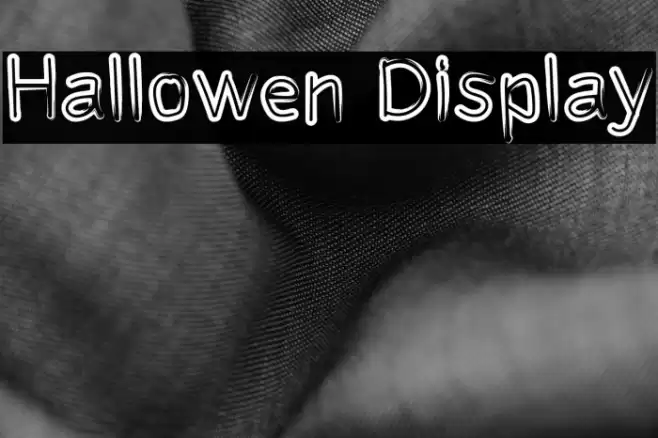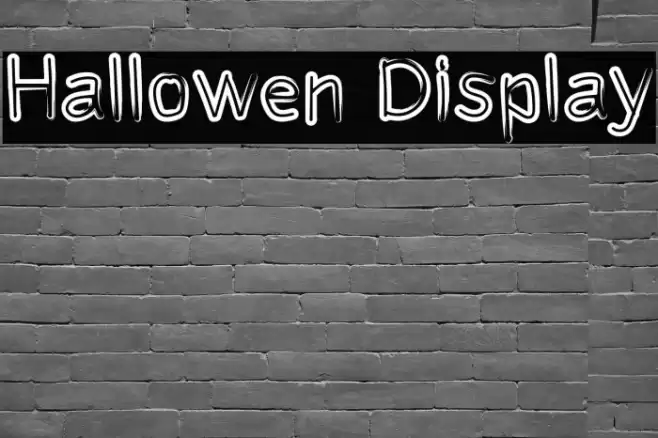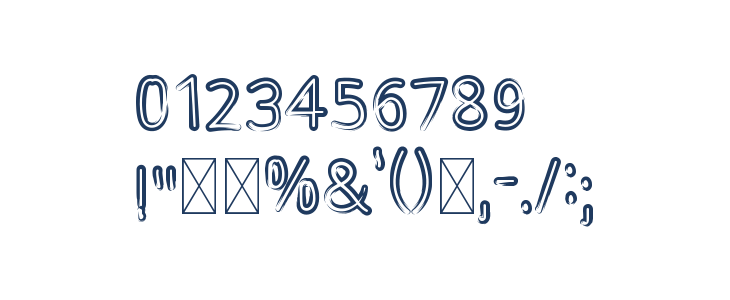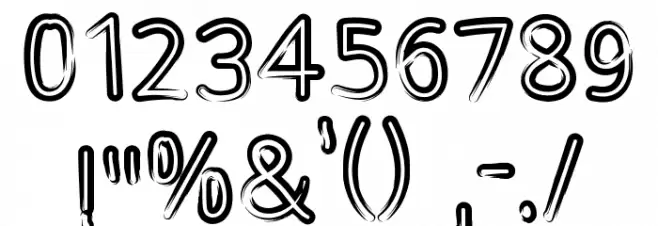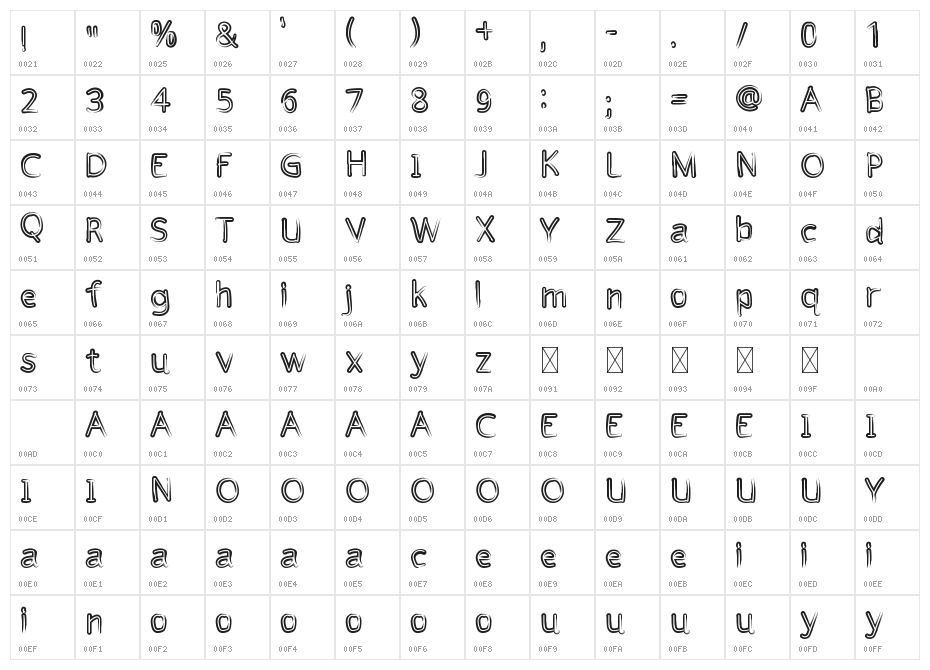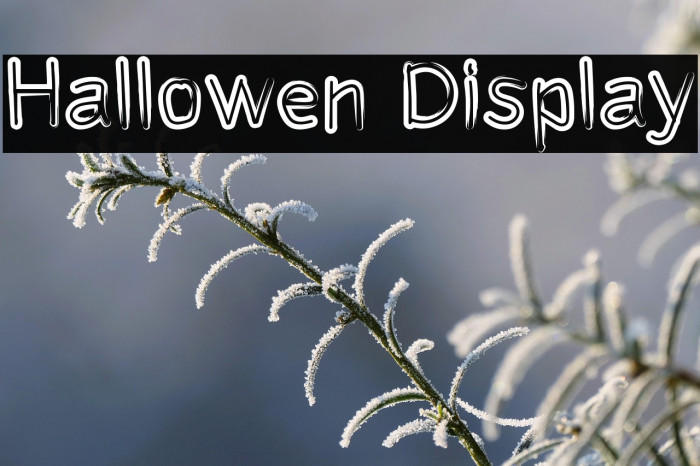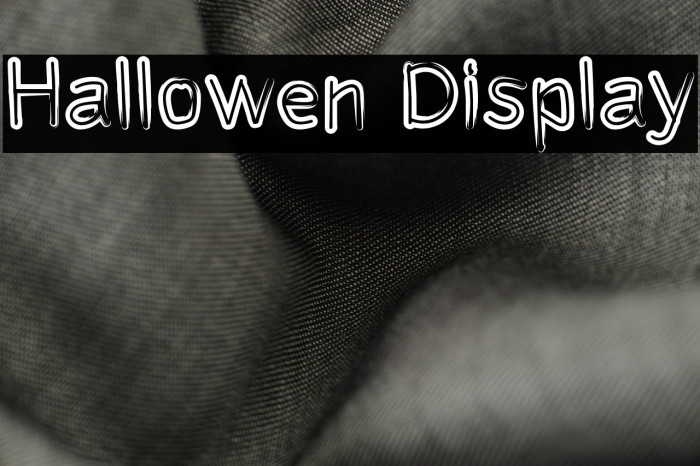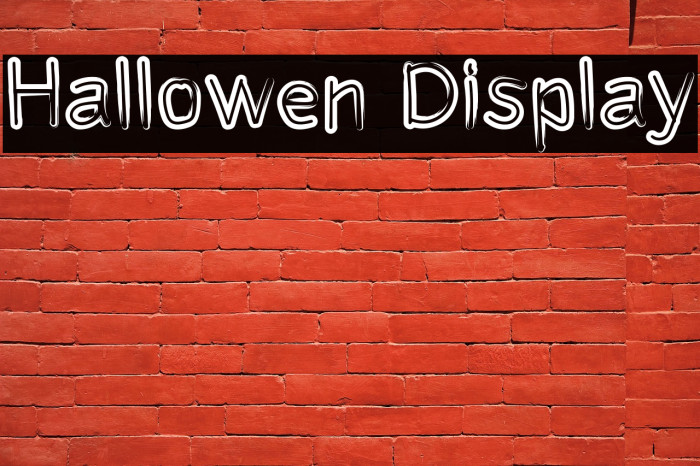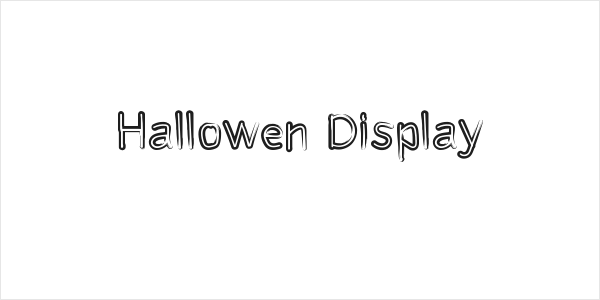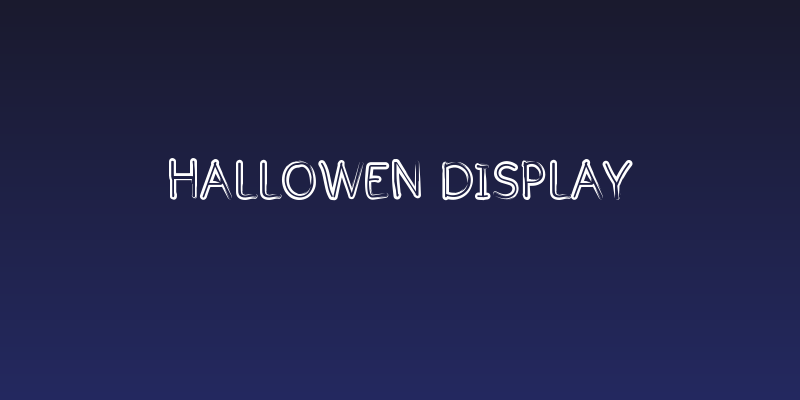
Hallowen Display Font
Hallowen Display Description
This font features a playful and spooky design, perfect for Halloween-themed projects. The characters are outlined with a bold, uneven stroke that gives a hand-drawn appearance, adding a sense of whimsy and eeriness. The letters are slightly irregular, enhancing the playful and casual vibe. The numbers and special characters maintain this style, ensuring consistency across all elements. This font is ideal for creating eye-catching headlines, posters, and invitations that require a touch of fun and spookiness.
A playful, spooky font with bold, uneven strokes and a hand-drawn appearance from Regular fonts.
- Proposed Projects: Ideal for Halloween posters, party invitations, themed event signage, and playful branding.
- Use Case: Headlines, Posters, Invitations